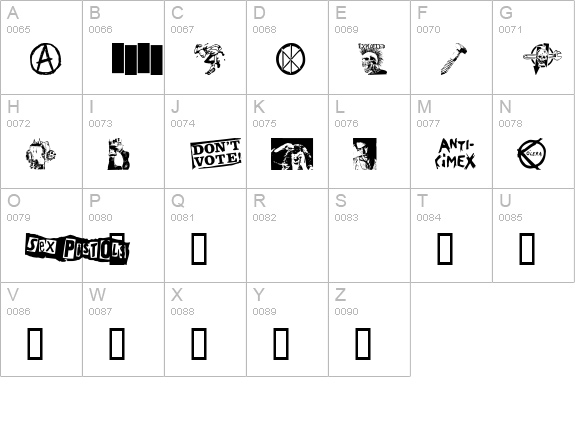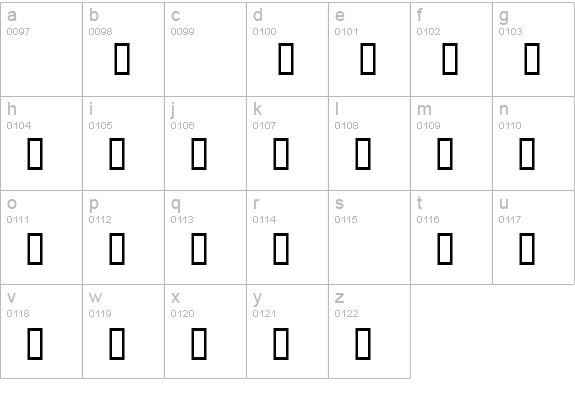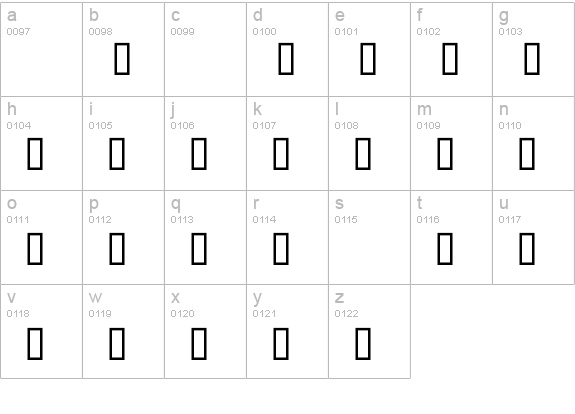
PUNK DINGBATS Font Details
The PUNK DINGBATS font is a rebellious and edgy typeface that perfectly captures the spirit of punk rock culture. With its bold and graphic design, this font is sure to make a statement in any project. Featuring a unique collection of symbols and icons inspired by punk music and fashion, PUNK DINGBATS adds a touch of attitude to your designs. What's even better is that PUNK DINGBATS is available for free download at FontsMarket.com. So go ahead and grab this font to add a punk rock vibe to your next project!